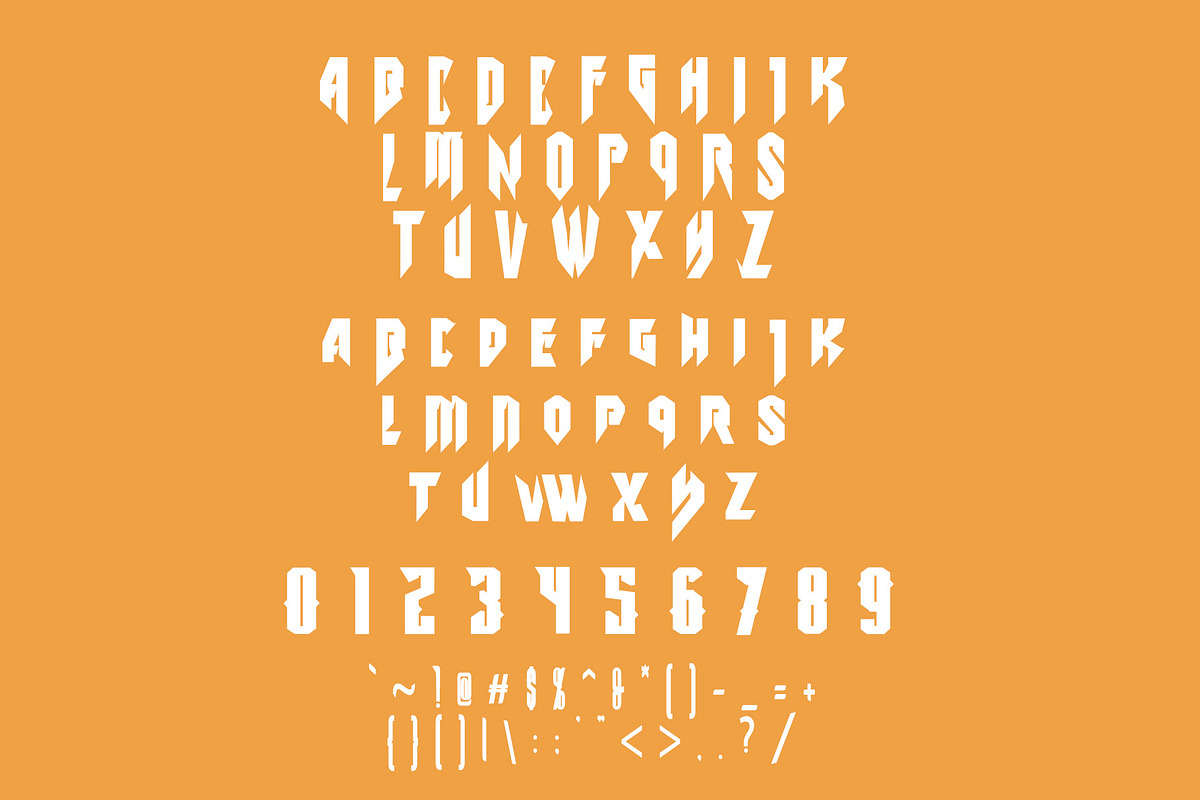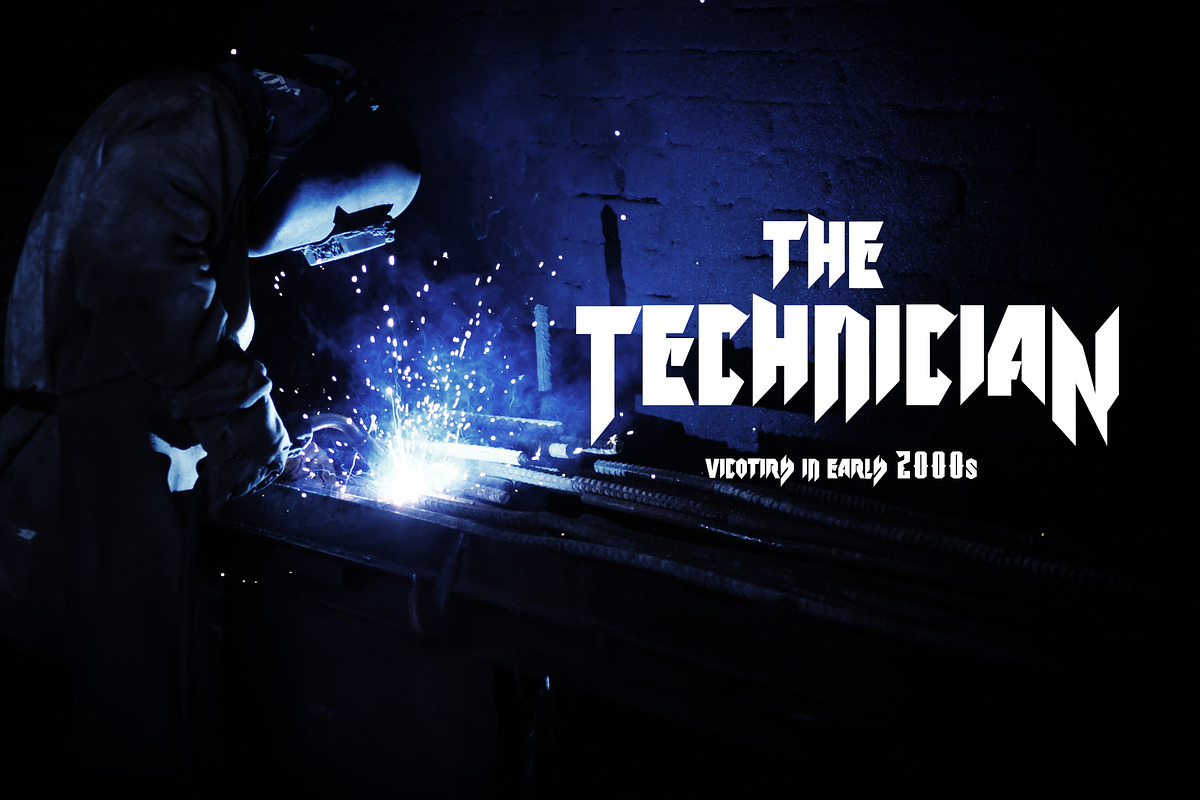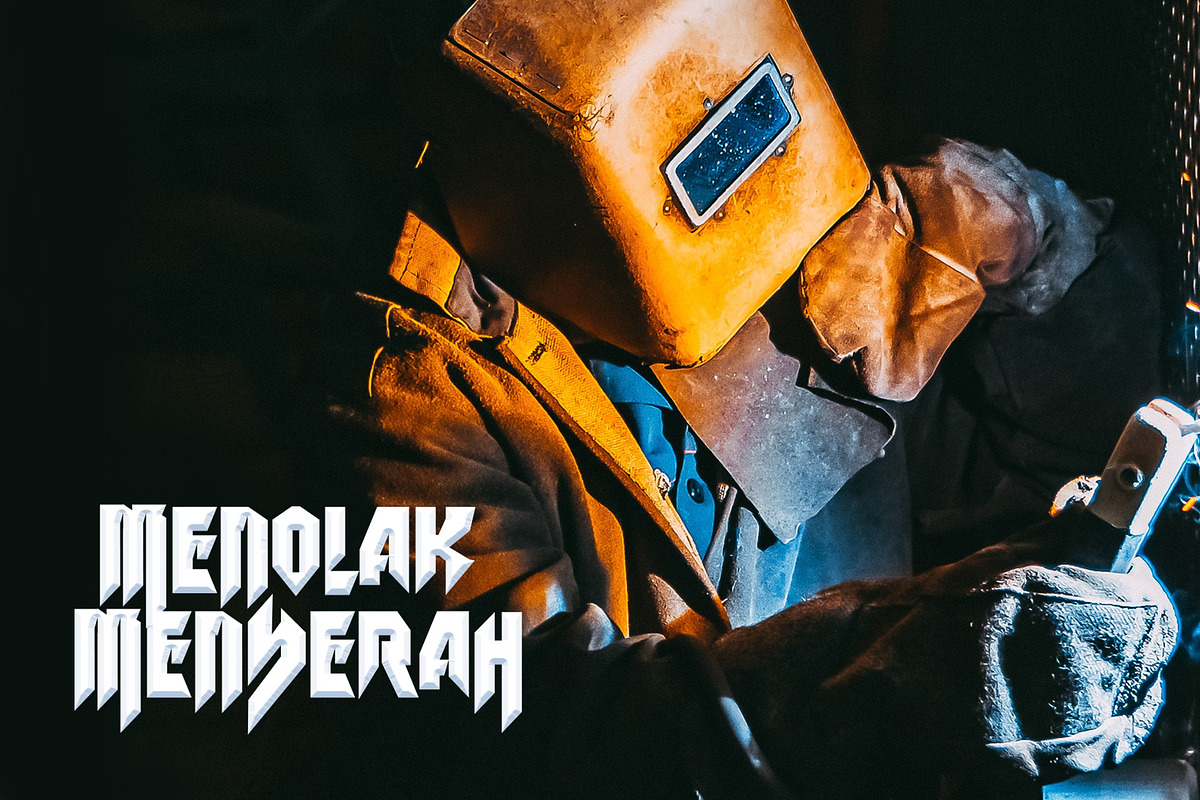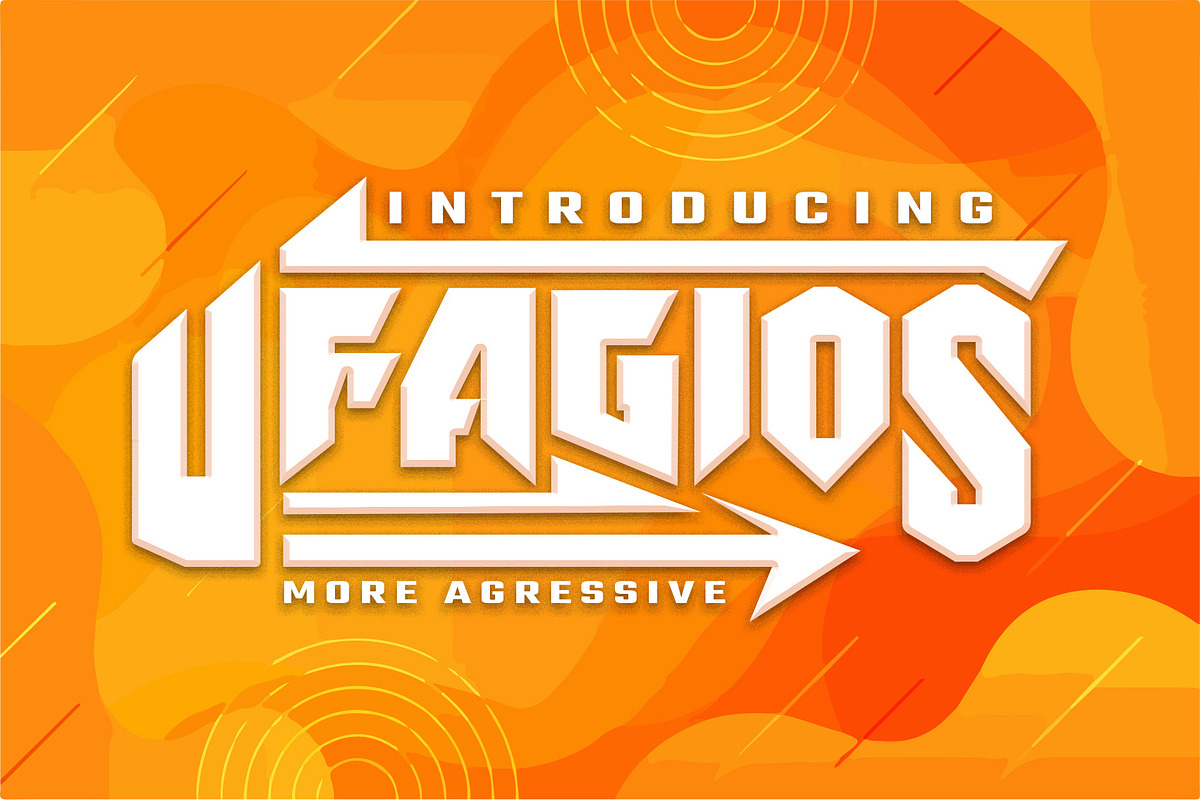
Ufagios - Aggressive Font
Introducing Ufagios, an aggressive and modern font. So perfect for you who needs a typeface for logo designs, magazine, social media, brochure, and many more.